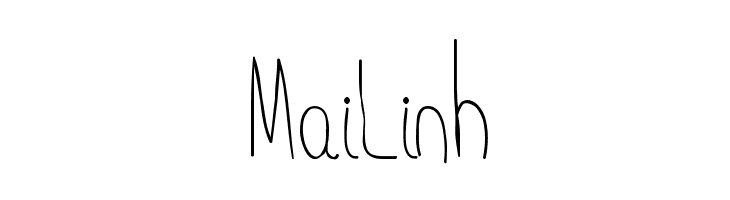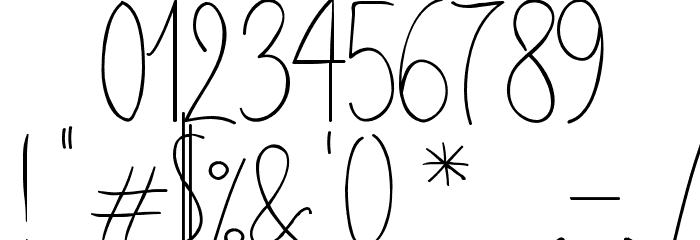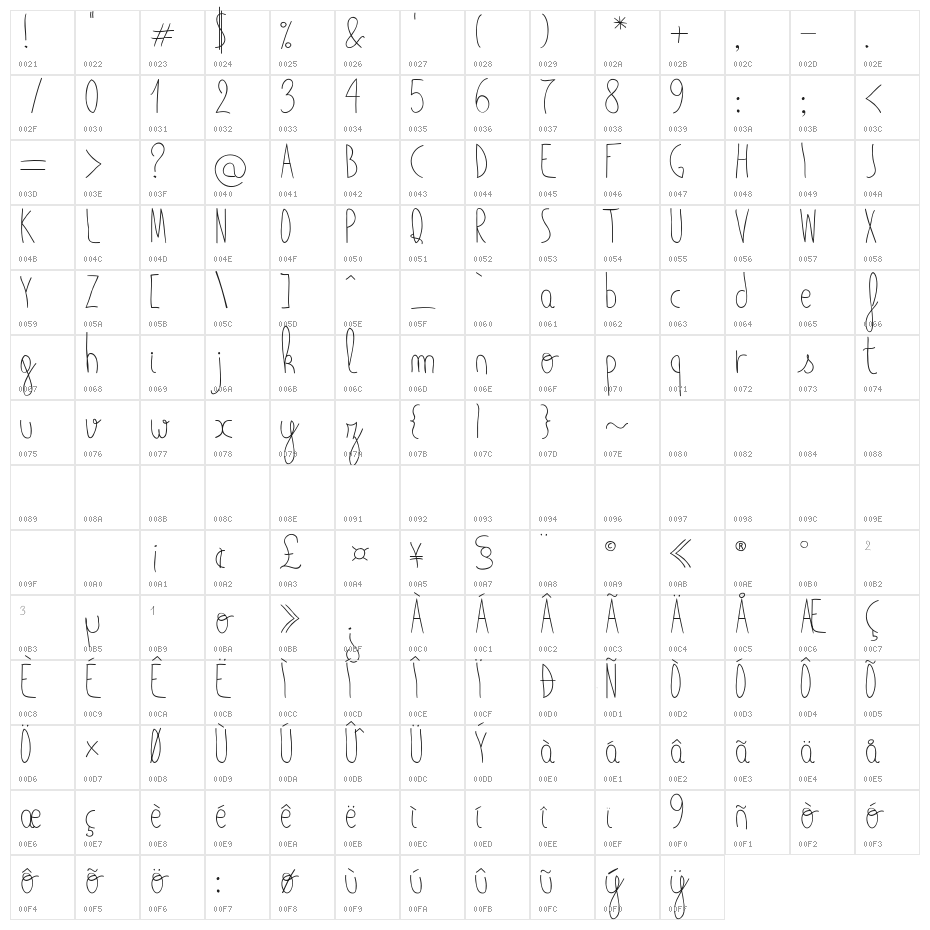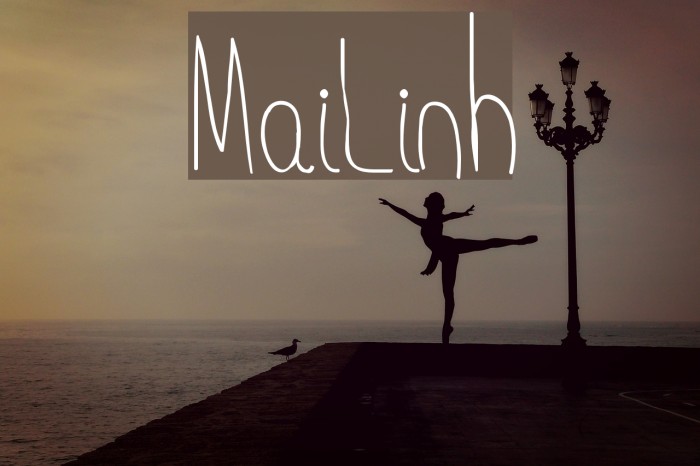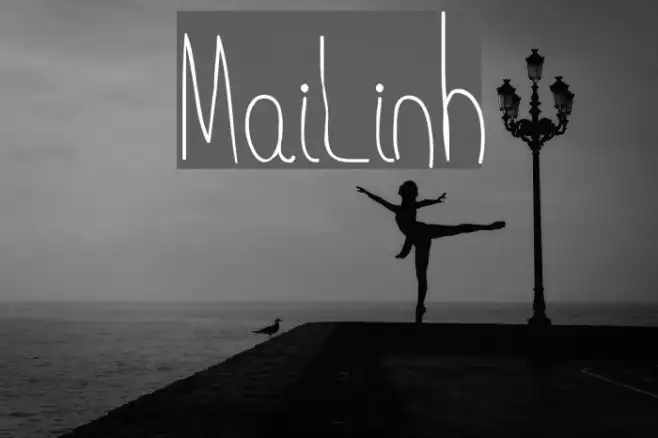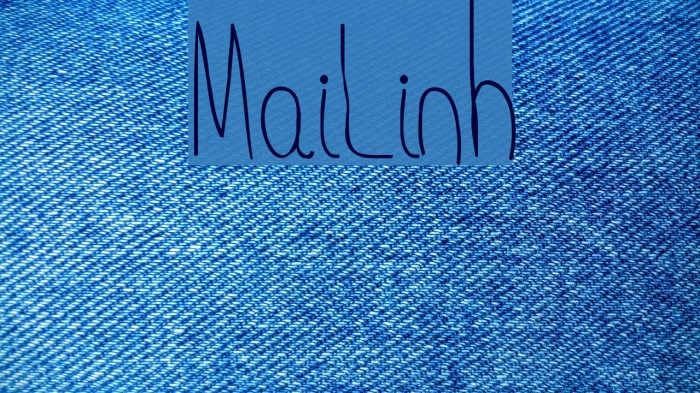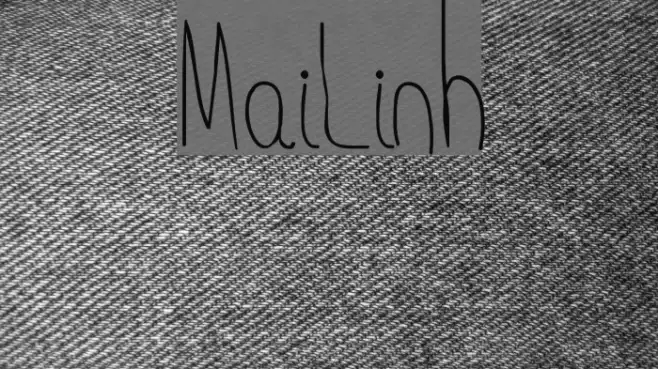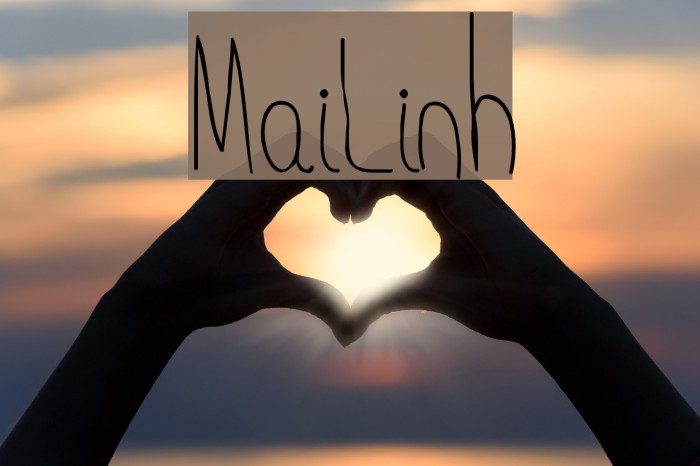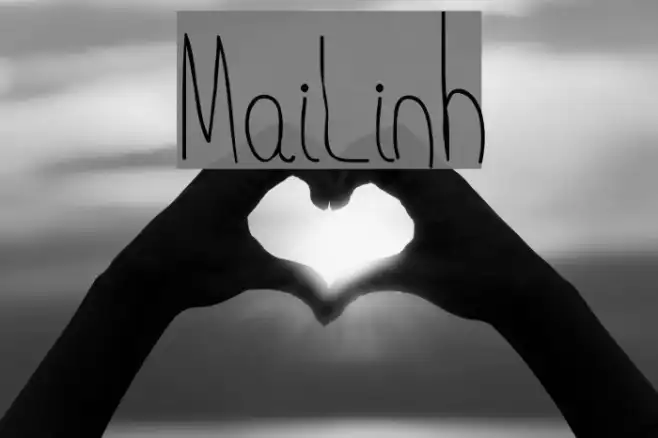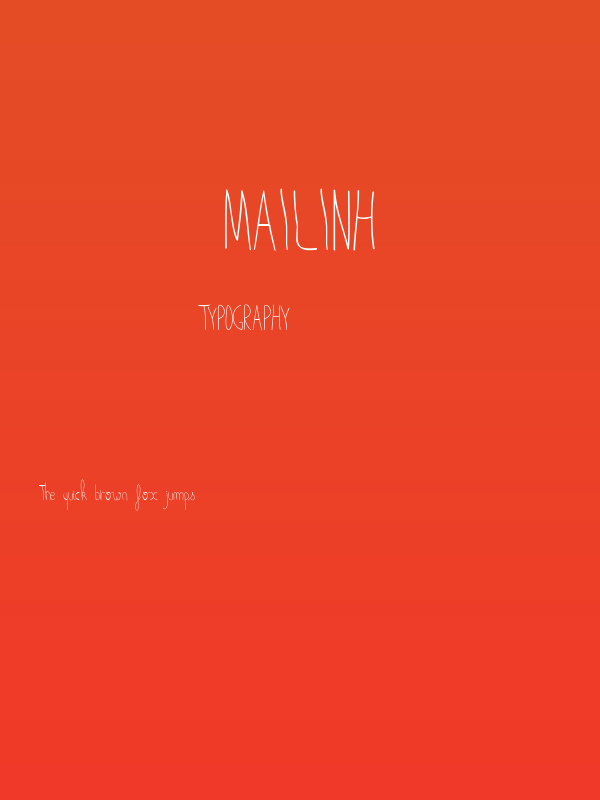
MaiLinh Font
MaiLinh Description
This font features a unique and playful handwritten style with tall, narrow characters. The uppercase letters are elongated, giving a whimsical and artistic feel, while the lowercase letters maintain a consistent flow with slightly exaggerated curves. The numbers are distinct and maintain the same playful aesthetic, with some digits having a more pronounced loop or curve. Special characters are creatively designed, adding to the font's overall charm. The strokes are thin, contributing to a light and airy appearance, making it suitable for creative and informal projects.